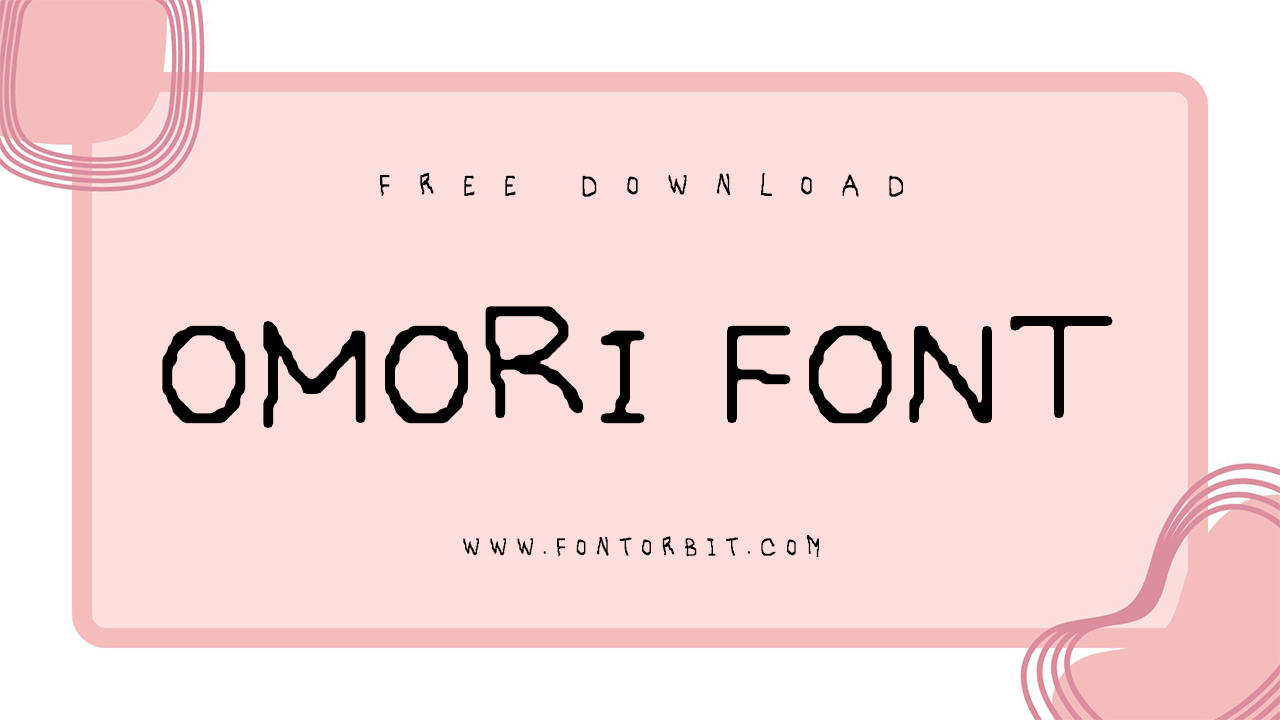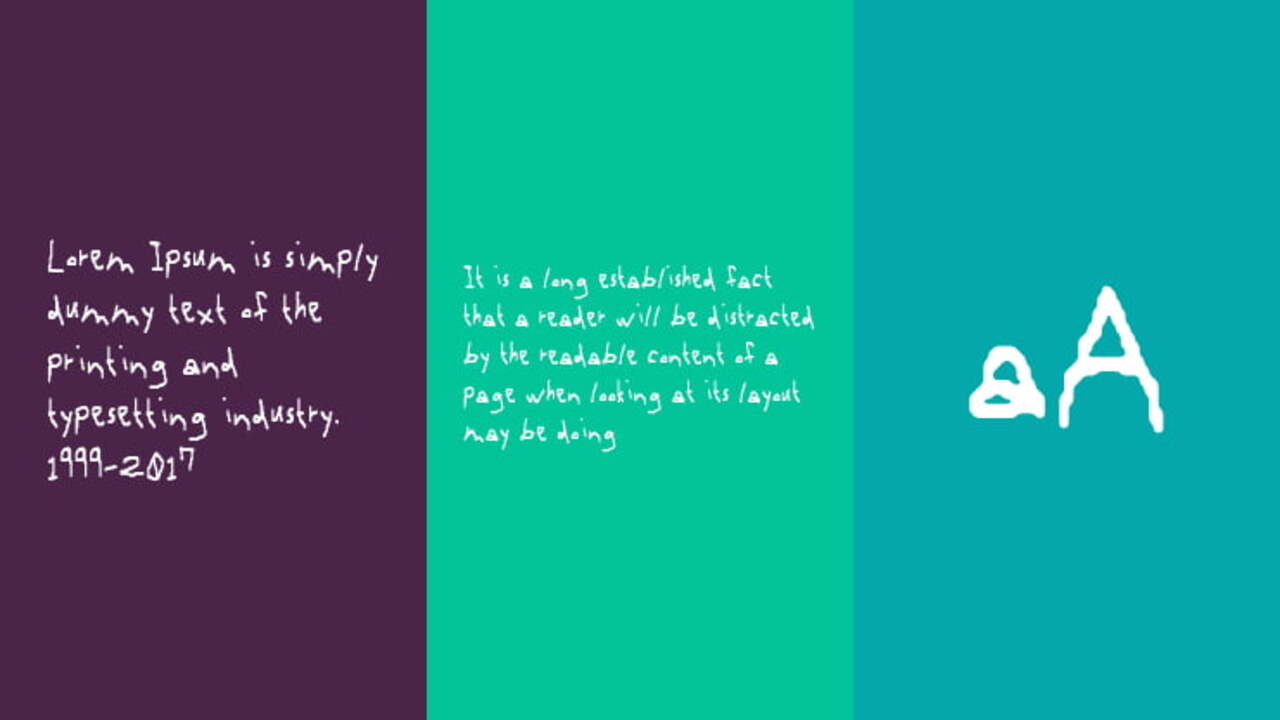
The Omori font is called the Omori Game Font. It is a custom typeface created by the game developer Omocat. The font features hand-drawn elements, including uppercase and lowercase letters, numerals, and special characters, capturing the game’s distinctive style. You will achieve excellent results if you apply this font to your project. This typeface has a variety of features to use.
Omori Font belongs to the Script family and has a hand-drawn, whimsical design. It includes various glyphs and special characters to match the quirky aesthetic of the game. It’s ideal for personal projects with a gaming or fantasy theme. This font has a very pairing nature, so it’s easy to pair it with similar fonts.
Omori Font Found In Use
- Birthday cards
- Game-related graphics
- Fan art
- Event Invitations
- Personal projects
- Creative web designs
- Merchandise
Omori Font is widely used in personal fan projects, game-themed graphics, and event invitations. It enhances designs with its unique, playful style, making it perfect for capturing the essence of the indie RPG genre.
4.What Are The Font Metrics Of Omori Font?
Omori Font includes hand-drawn glyphs with standard metrics, such as kerning pairs, line height, and character width, optimized for a whimsical, personal touch.
7.What Are The Design Principles Behind Omori Font?
Omori Font features hand-drawn, whimsical elements that reflect the game’s surreal and emotional themes, emphasizing a playful and unique visual style.